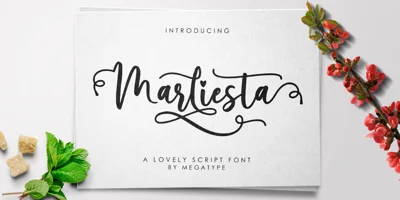
Marliesta Font
Marliesta Font is ideal for elegant wedding invitations, luxury beauty brand communications, sophisticated fashion magazines, upscale boutique signage, premium spa branding, refined jewelry marketing, graceful event materials, artistic lifestyle brands, delicate stationery designs, and feminine luxury applications. This exquisitely graceful script brings sophisticated femininity and refined elegance to prestigious design applications.
What makes Marliesta Font so exciting is its remarkable embodiment of sophisticated femininity and graceful elegance through letterforms that flow like silk scarves dancing in a gentle breeze, creating an atmosphere of refined luxury and timeless beauty. The font features delicately crafted characters with flowing curves and elegant flourishes that capture the essence of classical femininity and sophisticated taste. Its distinctive characteristics include graceful connecting strokes, refined proportions, and harmonious rhythm that mirror the natural elegance and poised confidence found in the most sophisticated expressions of feminine beauty and luxury lifestyle. The font's association with high-end elegance and proven appeal among discerning feminine audiences make Marliesta Font perfect for brands seeking to communicate sophistication, grace, and the kind of refined femininity that defines truly luxurious experiences and premium lifestyle brands.
The Marliesta Font family includes multiple elegant variations: Light, Regular, Medium, and Bold versions with sophisticated character sets. The comprehensive character collection encompasses complete Latin alphabet support with graceful alternates, elegant numerals, refined punctuation marks, feminine symbols, and delicate decorative elements that enhance luxury messaging. Professional features include contextual alternates that maintain flowing elegance, graceful spacing that creates sophisticated rhythm, refined character construction that ensures maximum feminine appeal, and elegant details that add authentic luxury without compromising professional functionality across different premium applications and sophisticated communications.
Whether you're creating luxury beauty campaigns, sophisticated wedding materials, or elegant communications that celebrate refined femininity and graceful sophistication, Marliesta Font provides the exquisitely elegant typography that elevates brands to the pinnacle of feminine luxury and sophisticated taste. Its exceptional grace makes it perfect for premium beauty brands, luxury wedding services, and sophisticated lifestyle companies where refined elegance and feminine sophistication are essential for authentic connection with discerning luxury consumers, while its flowing construction ensures memorable impact that resonates with audiences who appreciate the finest expressions of feminine beauty and graceful luxury. The font's combination of sophisticated femininity and contemporary elegance makes it invaluable for designers working with luxury beauty brands, wedding industries, and any project seeking to communicate the graceful sophistication, refined femininity, and timeless elegance that defines the most prestigious expressions of feminine luxury and sophisticated lifestyle branding in today's competitive luxury marketplace.